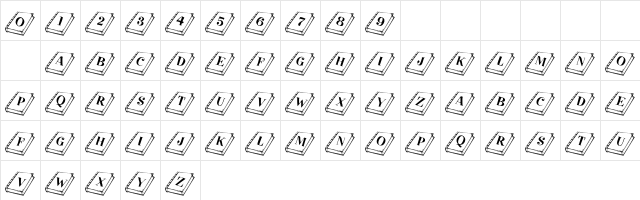
101! Book of Shadows Regular
Design Context for 101! Book of Shadows
101! Book of Shadows is built around its visual character rather than neutral utility - its distinctive forms are designed to make an impression at display sizes.
Font Pairing: Pair with a clean neutral sans-serif for body copy to let 101! Book of Shadows's character lead without overwhelming the composition.
Pro Tip: Use 101! Book of Shadows exclusively at display sizes - it was designed to be seen, not read at length. Let a neutral companion handle body copy.